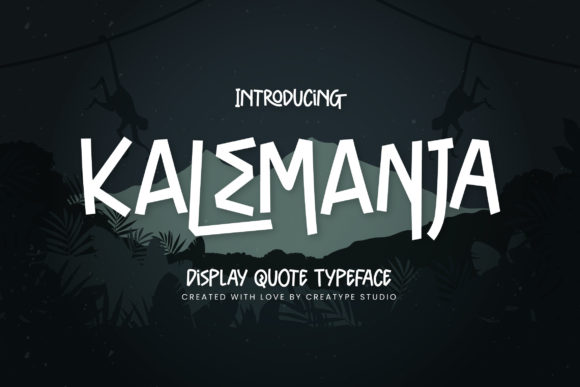
Embark on a captivating adventure with Kalemanja Font, a playful and enchanting display font designed to spark imagination and bring a touch of whimsy to your creative projects. Immerse yourself in a world of wonder, where letters dance and characters come alive, captivating the hearts of young and old alike.
Unleash your creativity and let Kalemanja Font guide you through a journey of storytelling. Its quirky and creepy charm will add a touch of magic to your designs, leaving a lasting impression on your audience. Whether you're crafting enchanting invitations, designing captivating posters, or creating eye-catching social media graphics, Kalemanja Font will elevate your creations to new heights.
Designed with children in mind, Kalemanja Font is the perfect companion for educational materials, storybooks, and playful projects. Its friendly and approachable curves make it easy for young readers to engage with the written word, fostering a love for reading and learning. Watch as their eyes light up with delight as they explore the enchanting world of Kalemanja Font.
With Kalemanja Font at your disposal, you'll discover a boundless realm of possibilities. Its versatility extends beyond children's content, making it an indispensable tool for a wide range of design endeavors. From quirky branding designs to whimsical invitations, Kalemanja Font will add a touch of playful elegance to any project.
As a PUA-encoded font, Kalemanja Font grants you effortless access to a treasure trove of glyphs and swashes. Unleash your imagination and explore the endless combinations available, adding intricate details and flourishes to your designs. With Kalemanja Font, the possibilities are limitless.
Immerse yourself in the captivating world of Kalemanja Font and let your creativity soar. Its unique charm and playful personality will transform your designs into captivating masterpieces. Experience the magic of typography and let your imagination run wild as you create projects that leave an unforgettable impression.